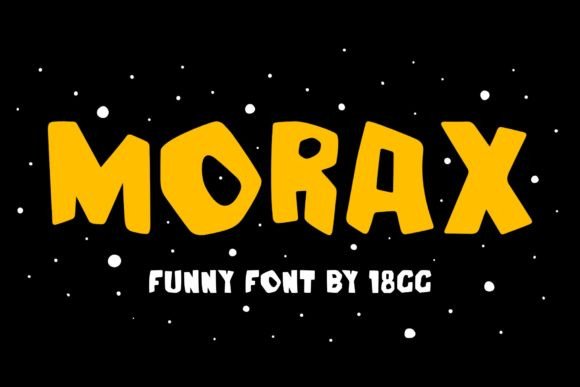
Introducing Morax Font, a display font that embodies the strength and authenticity of ancient stone. Its chiseled edges and bold structure evoke a sense of timelessness and solidity, making it the perfect choice for creating logos that demand attention.
Elevate your designs with Morax, a font crafted to make a lasting impression. Its unwavering presence commands respect, ensuring that your message stands out from the crowd.
Unleash your creativity with Morax, a font that defies the ordinary. Its distinctive character adds a touch of intrigue to any project, whether you're designing captivating packaging, engaging social media content, or simply seeking to make a bold statement.
Morax is not just a font; it's a gateway to a world of possibilities. Its versatility empowers you to create designs that resonate with your audience on a primal level. It's the font that speaks volumes without uttering a single word.
Join the ranks of design visionaries who have embraced the power of Morax. Let its solid foundation elevate your creations to new heights, turning your artistic dreams into tangible masterpieces.